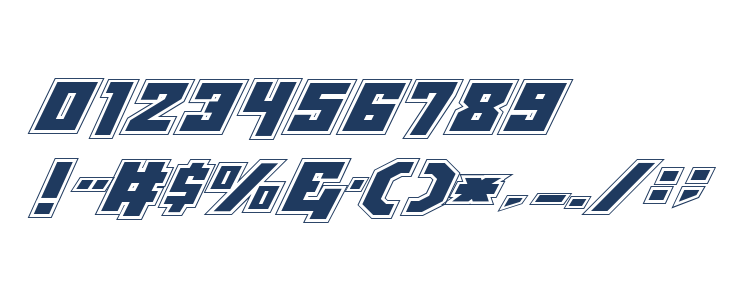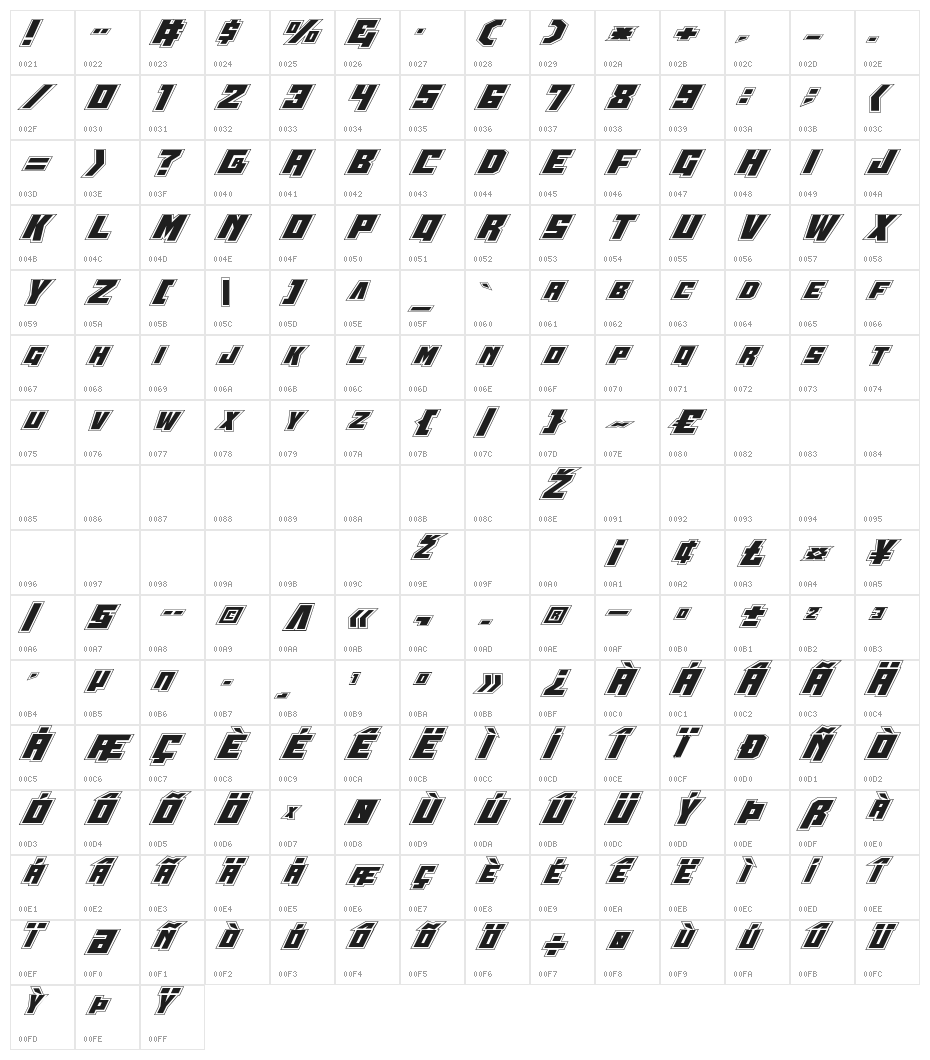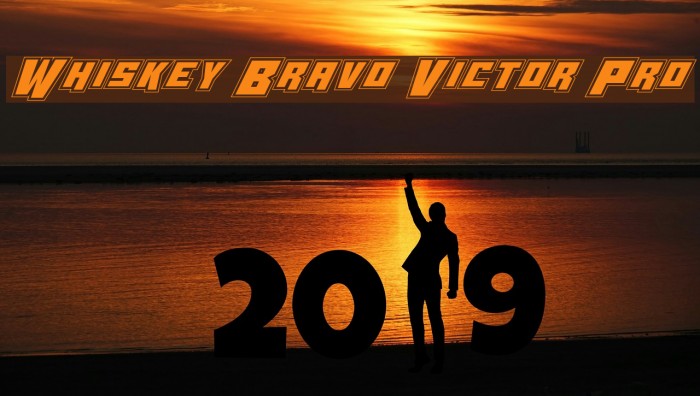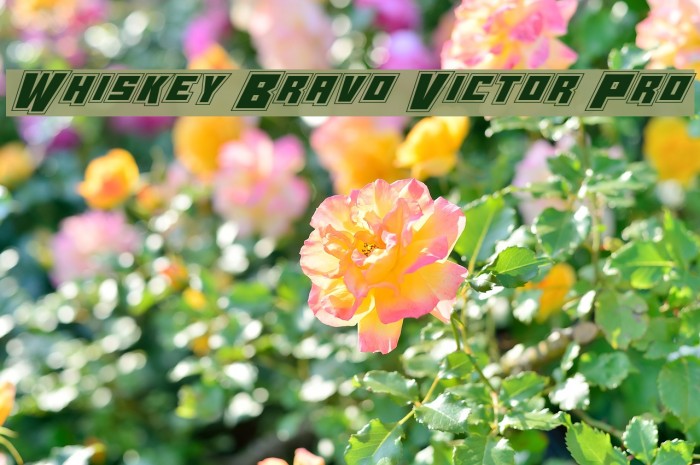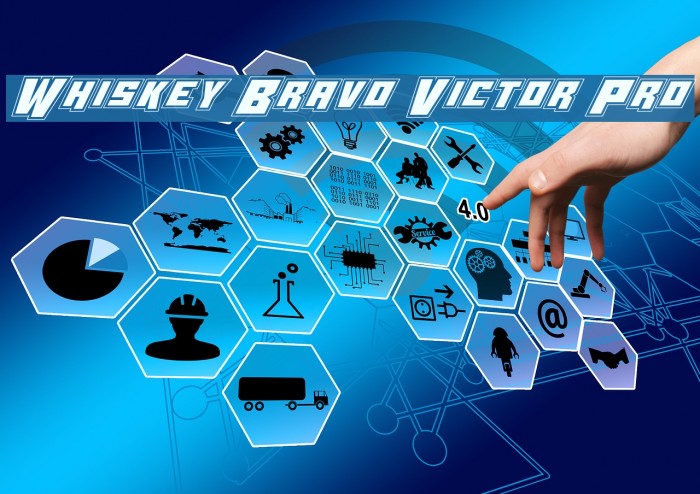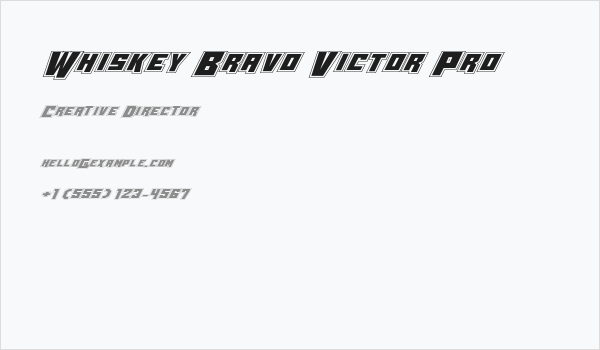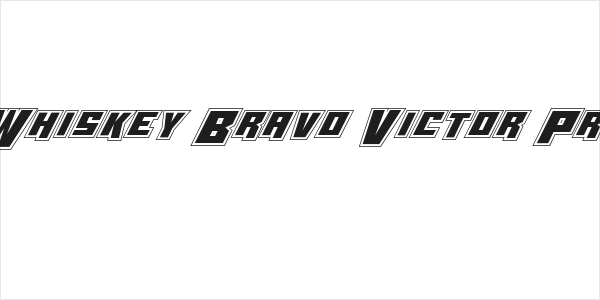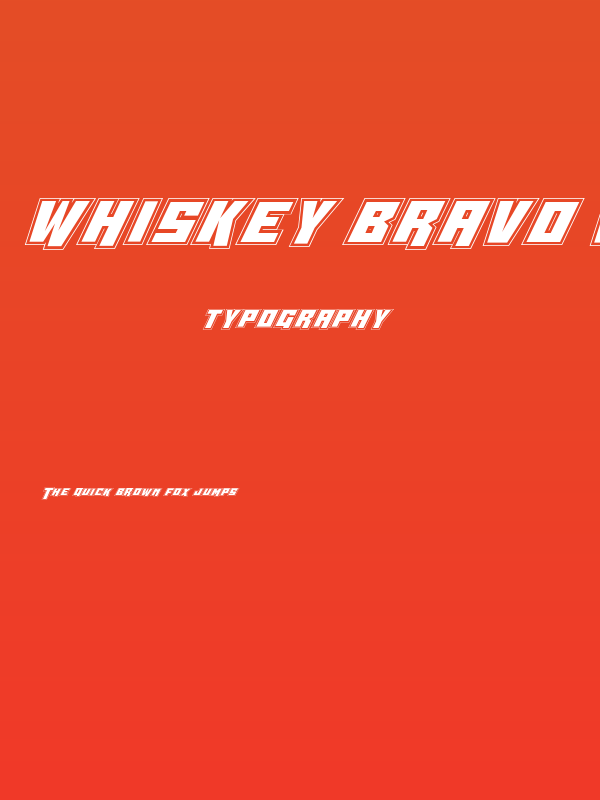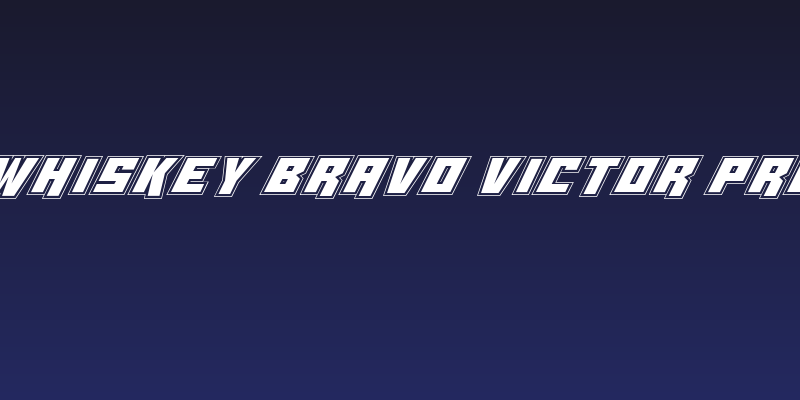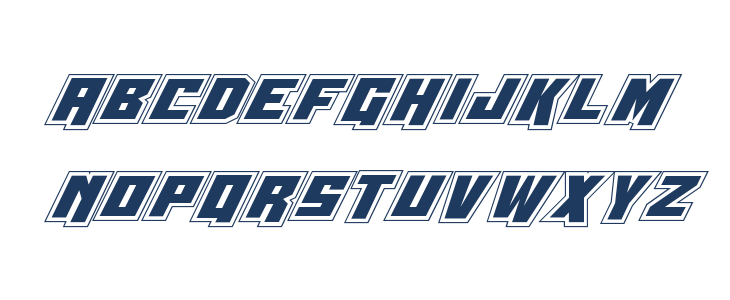
Whiskey Bravo Victor Pro Font
Whiskey Bravo Victor Pro Description
This font features a bold, dynamic style with a strong presence. Each character is designed with a three-dimensional effect, giving it a sense of depth and movement. The letters are angular and geometric, with sharp edges and a slight slant that adds to the energetic feel. The font is outlined, enhancing its boldness and making it stand out against various backgrounds. It is ideal for projects that require a striking and impactful visual element.
| Proposed Projects | Ideal for sports branding, video game titles, posters, and any project needing a bold, energetic typeface. |